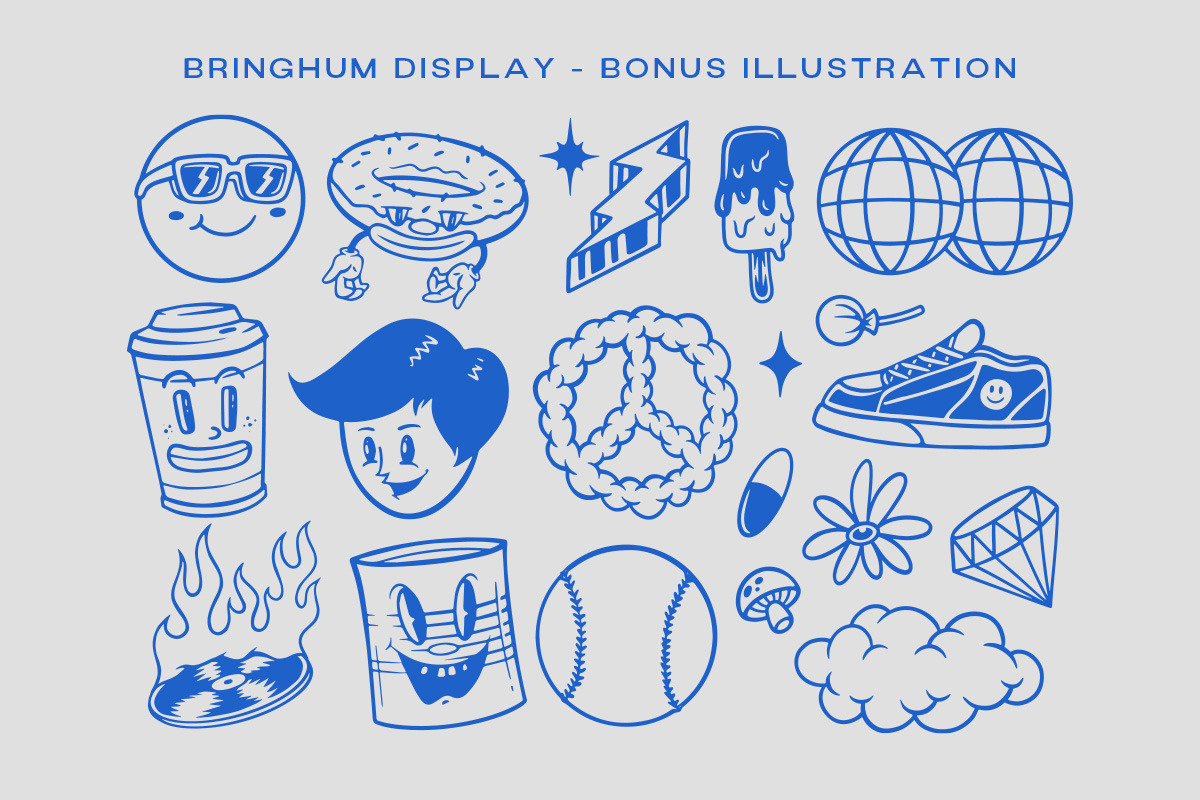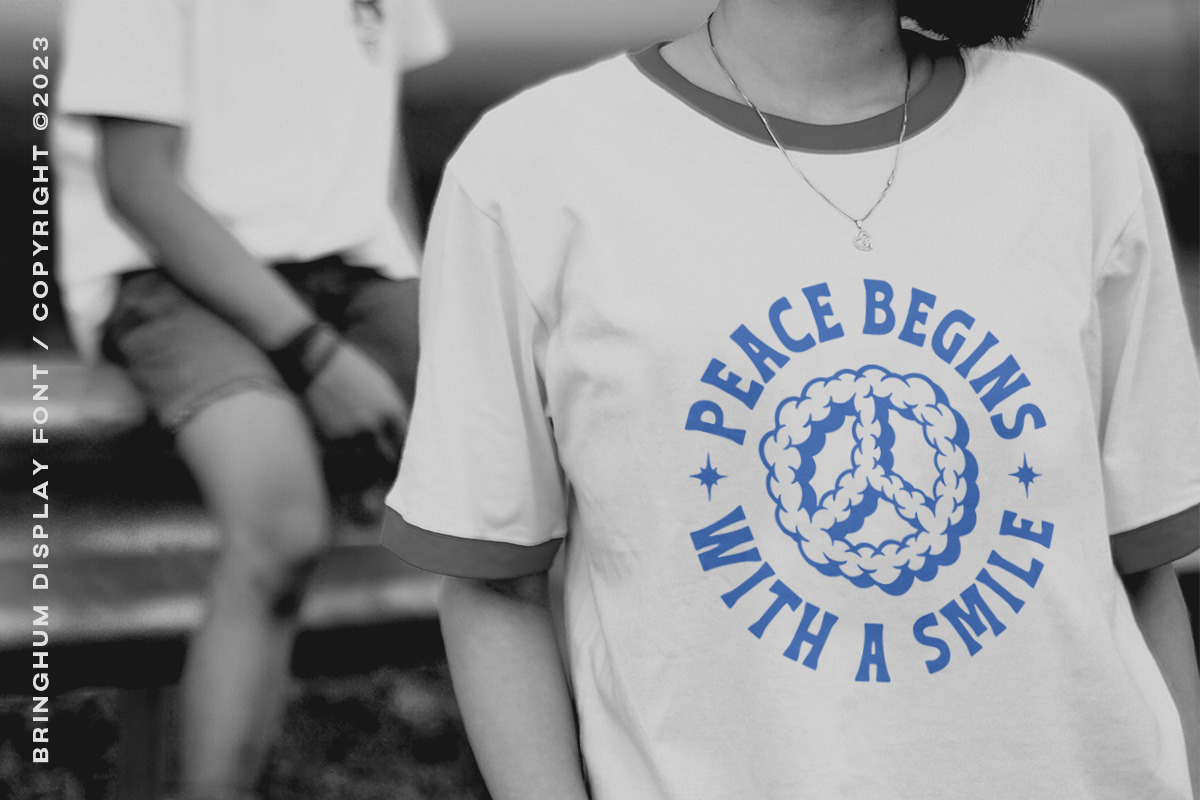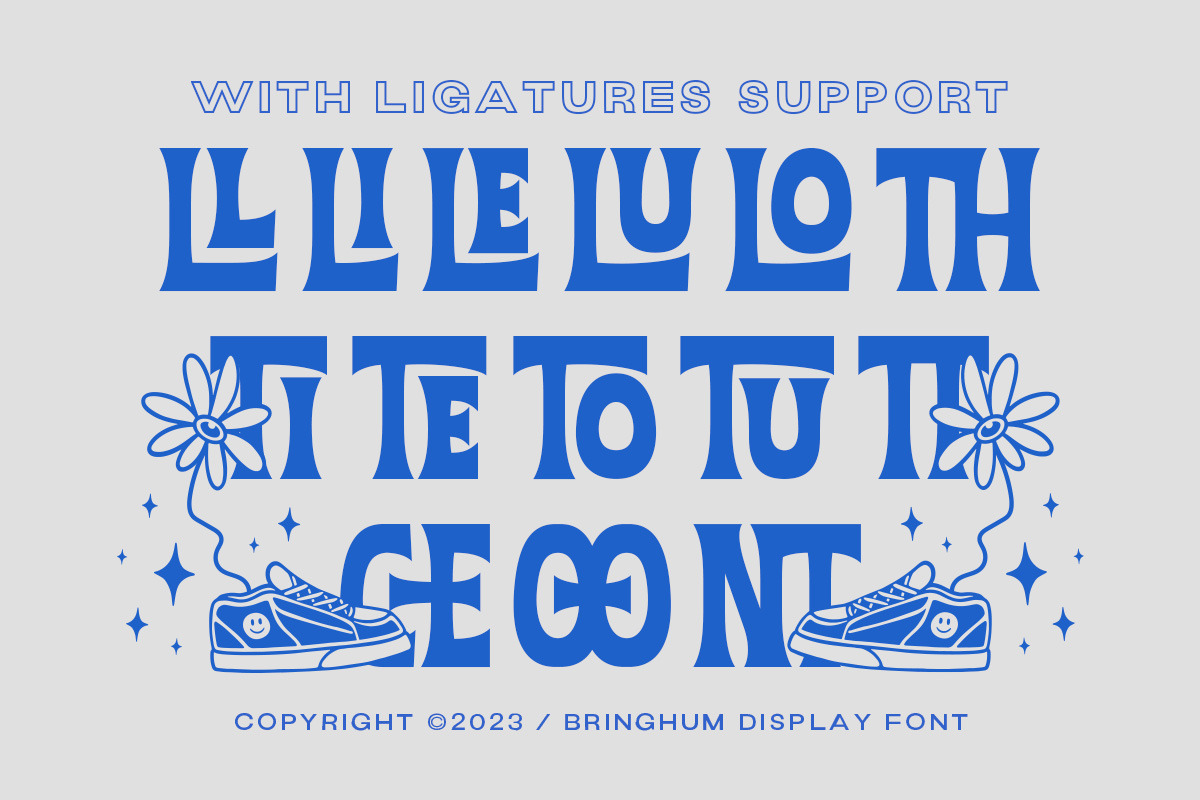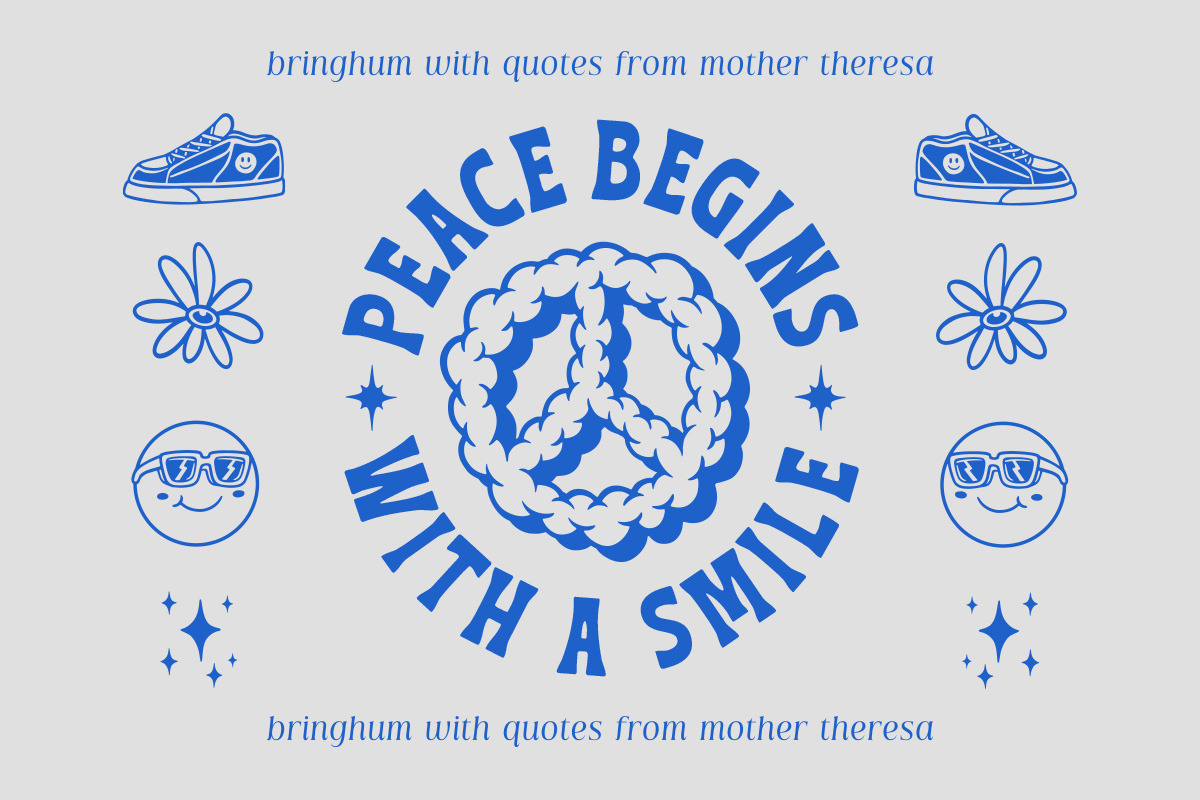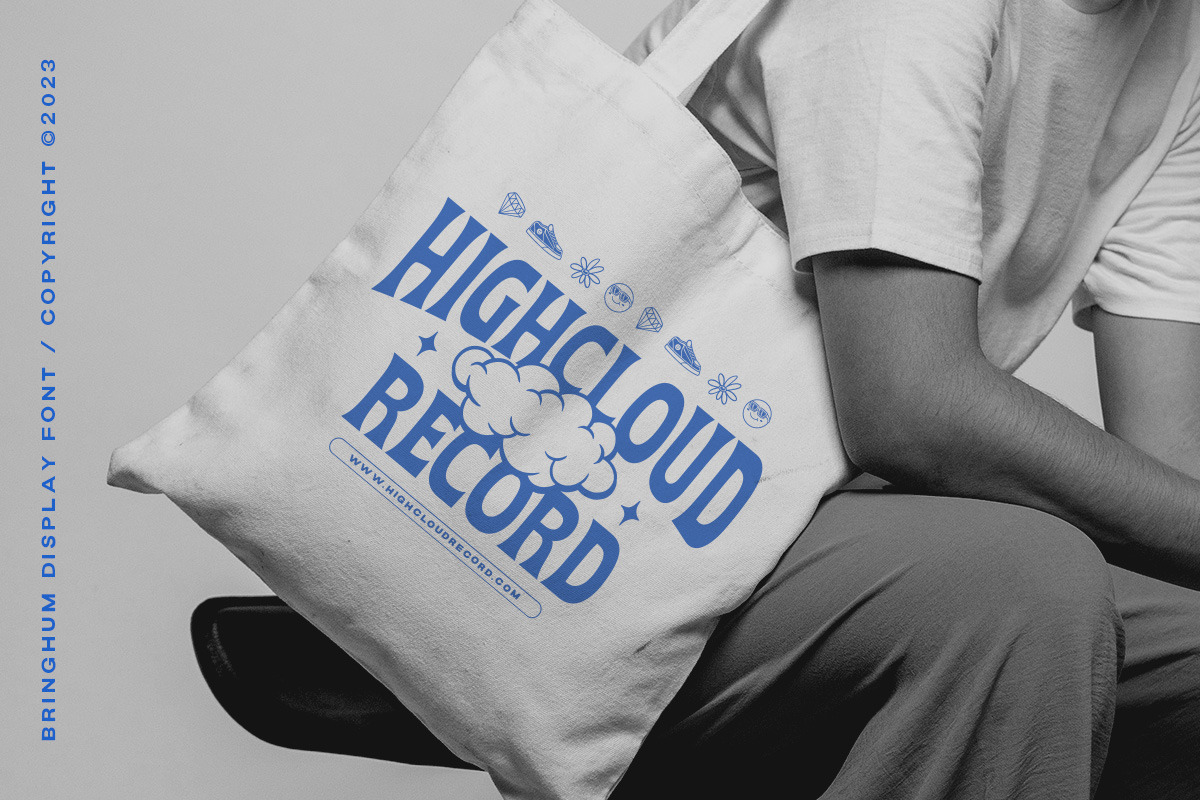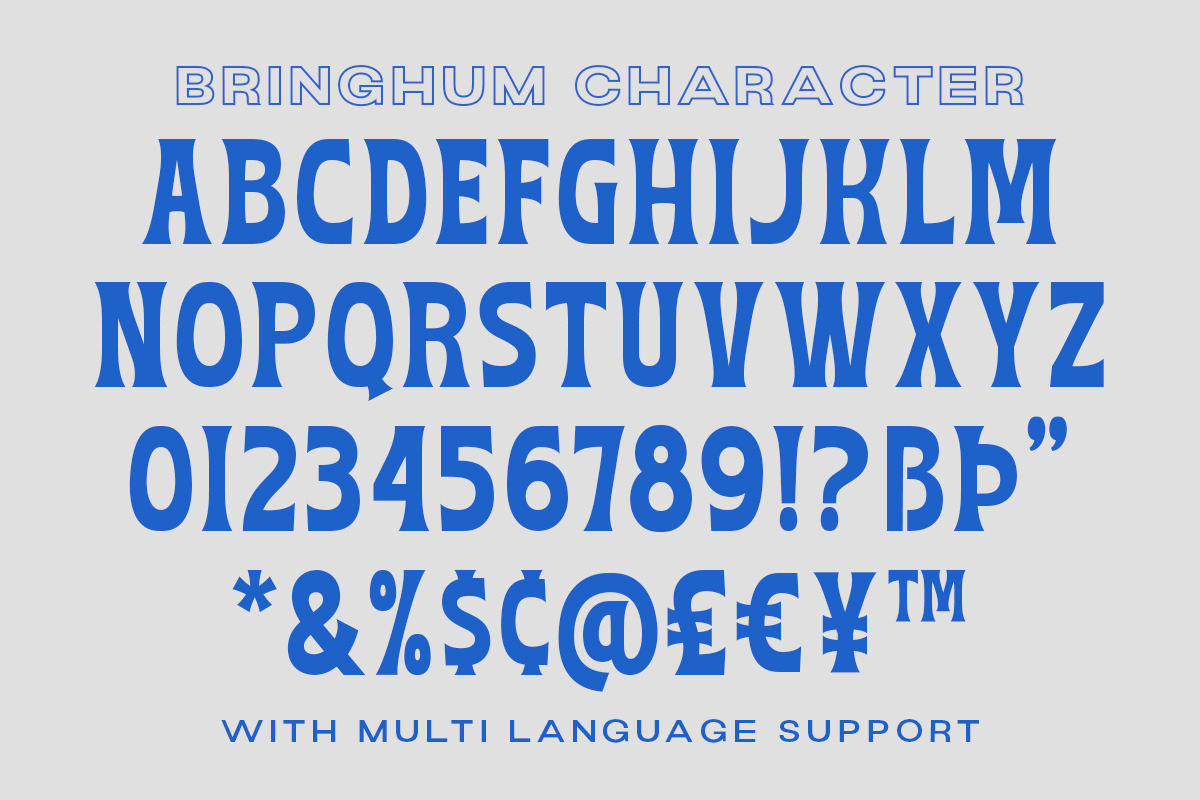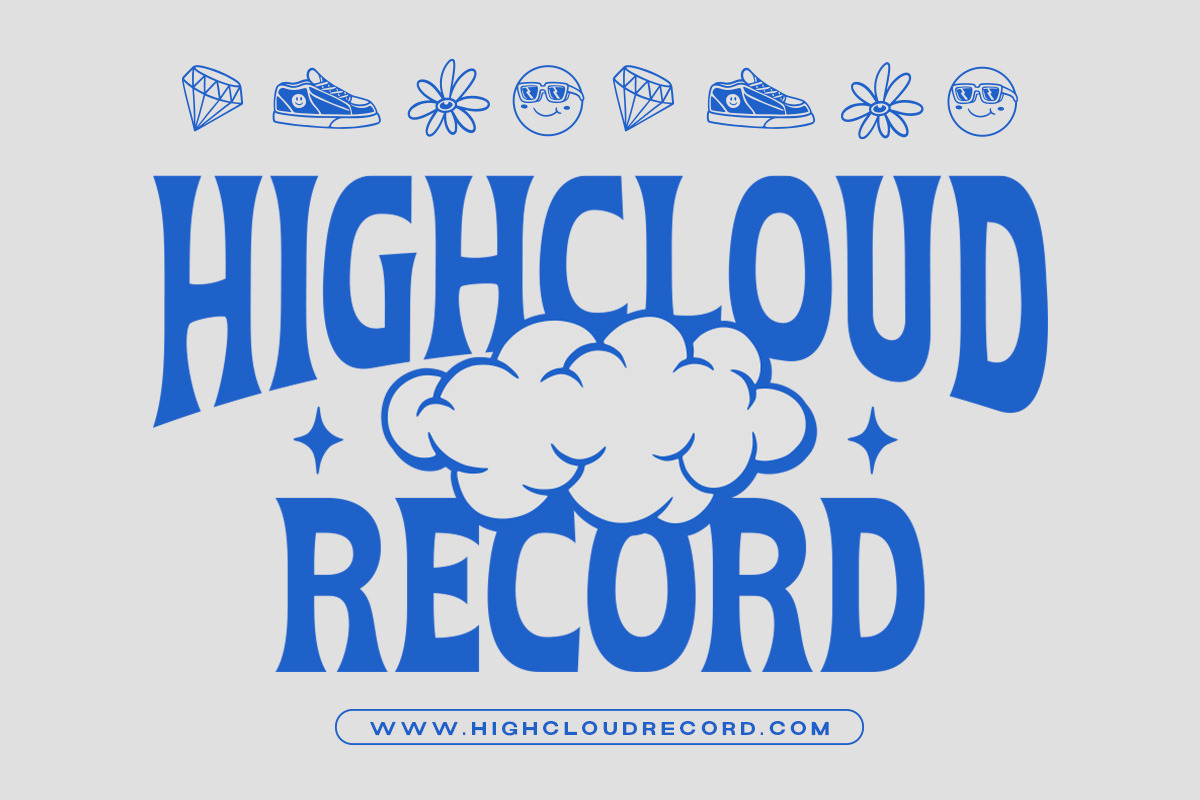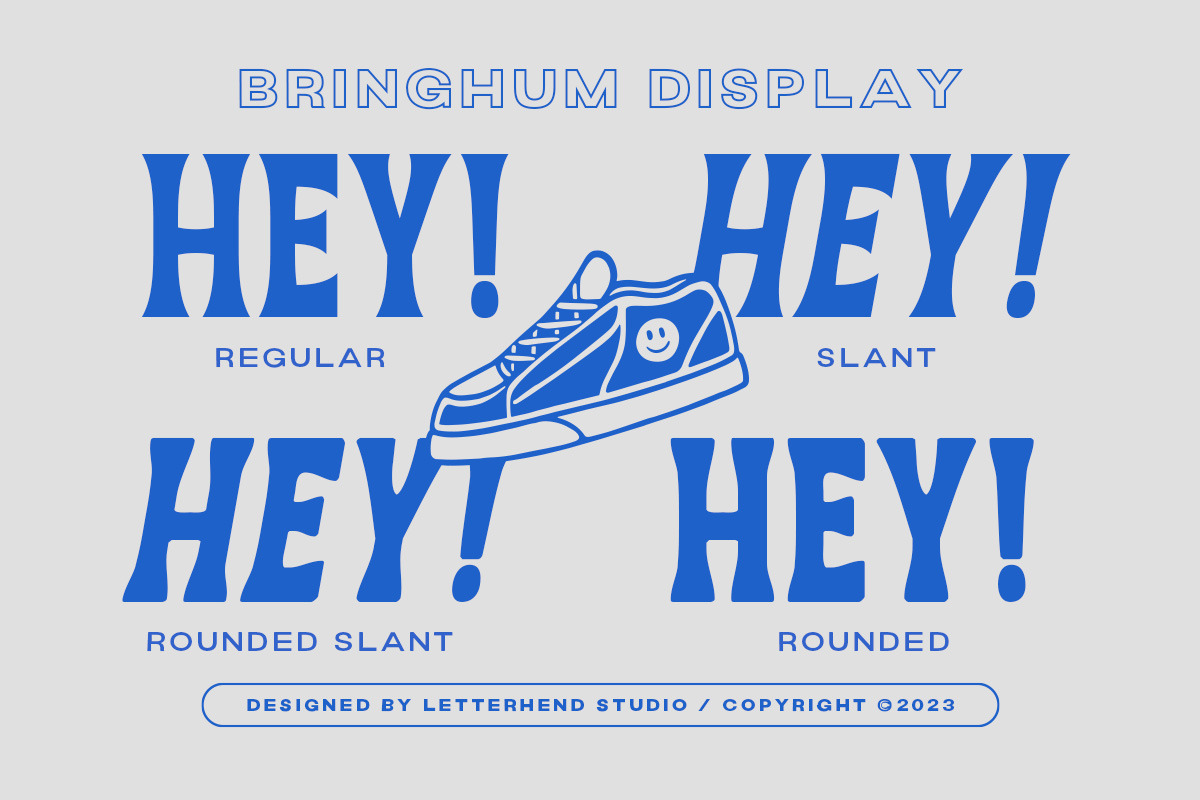
Bringhum Display
Introducing Bringhum, a bold and nostalgic typeface that captures the essence of the 90s era. Immerse yourself in its retro charm. Explore the versatility of this font by incorporating the accompanying cartoon illustration to enhance your design.
This font is exceptionally well-suited for a range of applications, particularly for logos and various formal formats such as invitations, labels, magazines, books, greeting and wedding cards, packaging, fashion, makeup, stationery, novels, and diverse advertising materials.